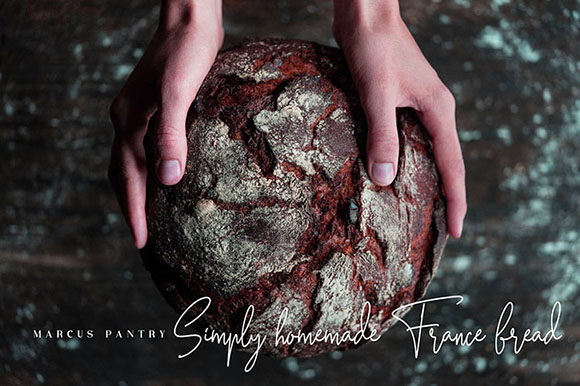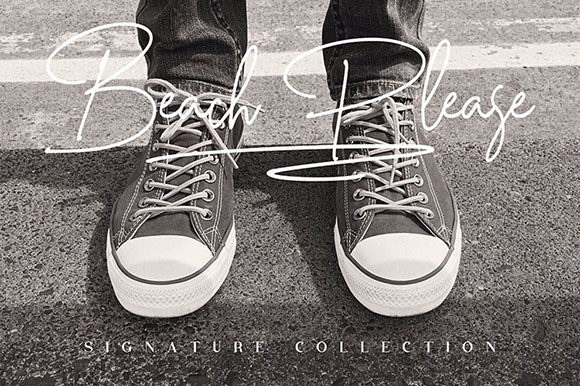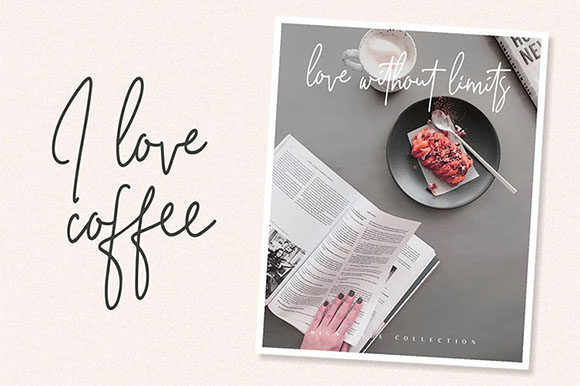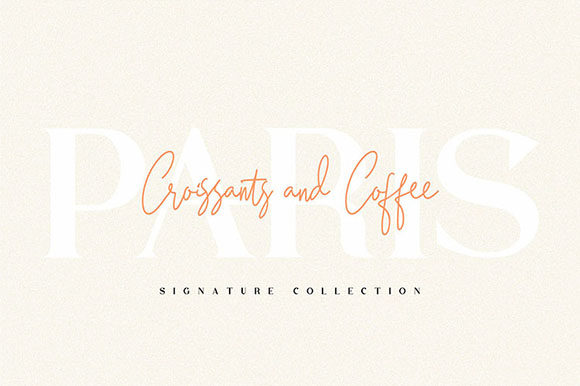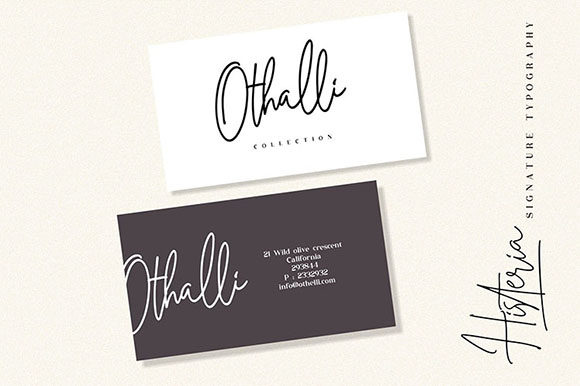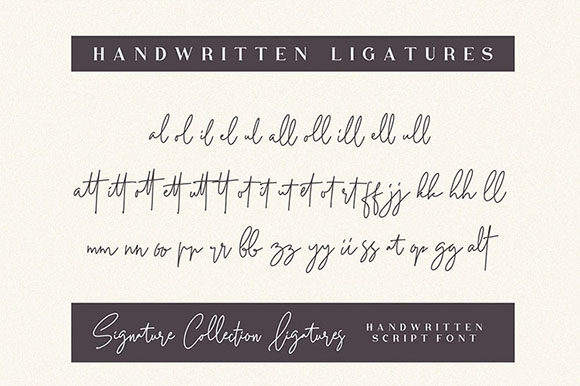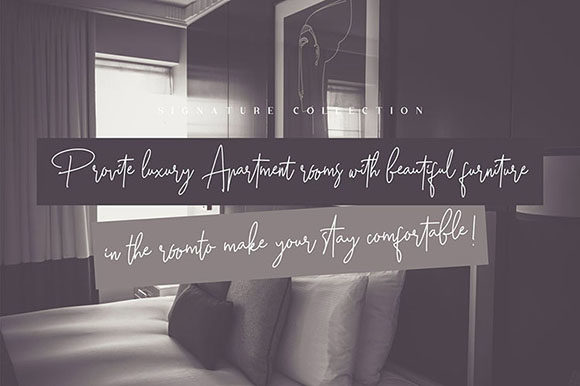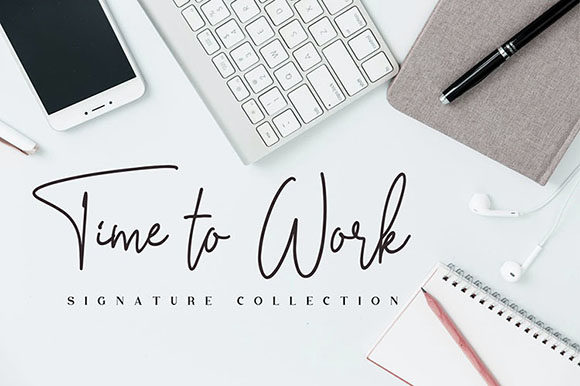
HomeScript FontsPetricia Font Script Fonts Petricia Font FacebookXPinterestWhatsApp Petricia Font Poster 2 Petricia Font Poster 3 Petricia Font Poster 4 Petricia Font Poster 5 Petricia Font Poster 6 Petricia Font Poster 7 Petricia Font Poster 8 Petricia Font Poster 9 Petricia Font Poster 10 About Petricia Font Petricia is a stylish and dynamic script font with a contemporary feel. Get inspired by its unique design! DOWNLOAD ON CREATIVE FABRICAThis font is sold and delivered by Creative Fabrica. Font Canyon may earn a commission if you buy through this link. People also explored Biosha Font Gholing Font Valentines Font Christmas Eve Font Palmera Skull Kidz Font Androulla Font Hellfire BB Hang out Font 394 0 TagsPetricia Font Previous articleWhite Smith FontNext articleBeautify Script Font LEAVE A REPLY Cancel reply Comment: Please enter your comment! Name:* Please enter your name here Email:* You have entered an incorrect email address! Please enter your email address here Website: Save my name, email, and website in this browser for the next time I comment. Personal Use Free Heart Memory Personal Use Free Read more about this font Miss Love Personal Use Free Read more about this font Legacy Personal Use Free Read more about this font Propaganda Personal Use Free Read more about this font BLOG Best Fonts for YouTube Videos: Make Your Thumbnails Stand Out Best Fonts for YouTube Videos: Make Your Thumbnails Stand Out Choosing the right font can make a massive difference in how your YouTube videos perform.... Top 7 Google Fonts Alternatives for Faster and Privacy-Friendly Web Design (2025) To increase your work productivity, choose the most readable fonts. Free Fonts Risk: Why Free Fonts Can Be Dangerous for Designers